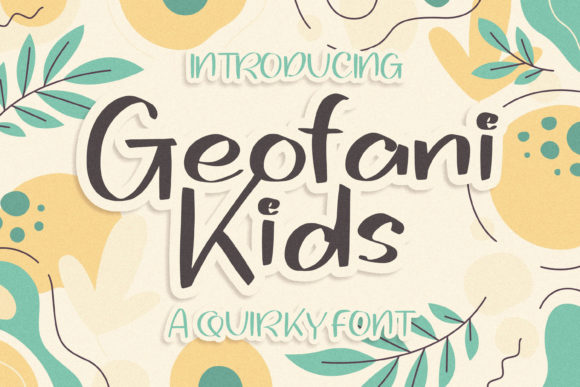
Dive into the realm of design with Geofani Kids, a font that captivates with its whimsical and playful charm. Created by the talented afikastudio, this display font is an artistic masterpiece designed to ignite your creativity.
With its captivating curves and bouncy characters, Geofani Kids is a font that breathes life into your designs. Perfect for logos, branding projects, homeware designs, and product packaging, this font adds a touch of whimsy and fun that is sure to captivate your audience. Picture your designs adorned with Geofani Kids, exuding a playful energy that resonates with your brand's personality.
Geofani Kids is not just a font; it's an invitation to explore the world of imagination. Its versatile nature makes it a perfect fit for a myriad of projects, from mugs and quotes to posters and shopping bags. Let your creativity soar as you craft designs that are uniquely yours, infused with the magic of Geofani Kids.
Imagine your designs taking center stage, adorned with Geofani Kids' delightful characters. T-shirts, book covers, name cards, and invitation cards come alive with a charm that speaks to your audience. The possibilities are endless, and Geofani Kids is the key to unlocking your creative potential.
For those seeking a font that exudes luxury and sophistication, Geofani Kids is your perfect match. Its elegant curves and refined details add a touch of class to your designs, making them stand out from the ordinary. Whether it's labels, photography, watermarks, or special events, Geofani Kids elevates your projects to new heights of visual appeal.
Discover the boundless possibilities of Geofani Kids today. Let your imagination run wild as you create designs that inspire, engage, and captivate. Geofani Kids is more than just a font; it's a gateway to a world of creative expression. Embrace its magic and watch your designs come to life!